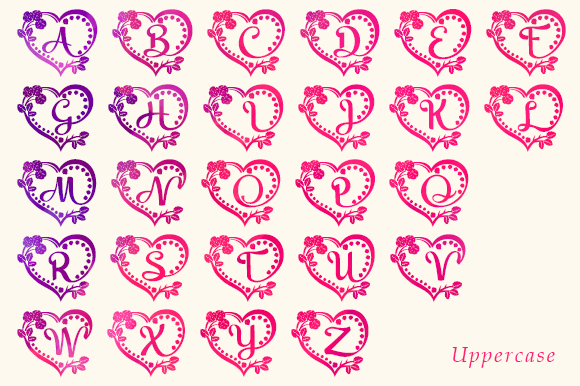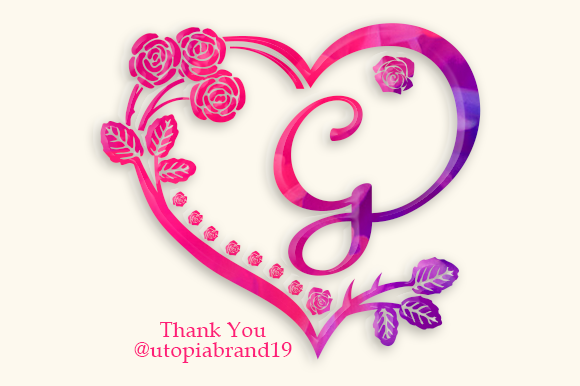
Rose Heart Monogram Font
Rose Heart Monogram is an elegant decorative font, featuring romantic ornaments. Fall in love with its authentic feel and use it to create gorgeous wedding invitations, beautiful stationary art, eye-catching social media posts, and cute greeting cards. This font is PUA encoded, which means you can access all of the glyphs and swashes with ease!